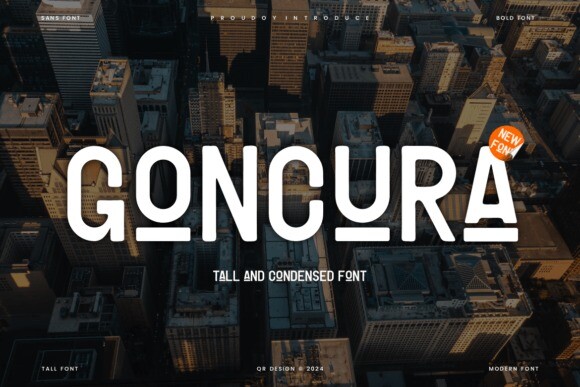
Goncura Font
Goncura is a bold and contemporary tall sans-serif font with a minimalistic yet impactful design. Its rounded edges and geometric shapes create a clean and professional look, perfect for urban branding, editorial layouts, logo designs, and tech-inspired projects. Goncura’s distinct style offers versatility while maintaining a strong and modern personality in every application.